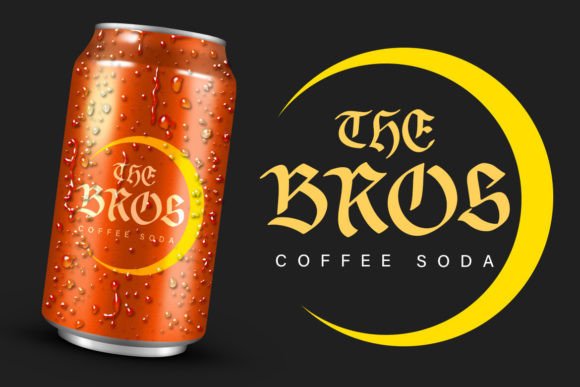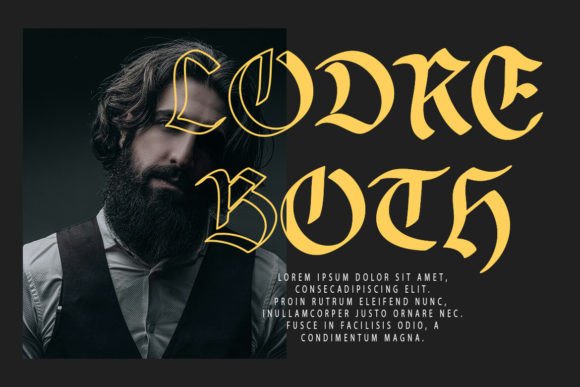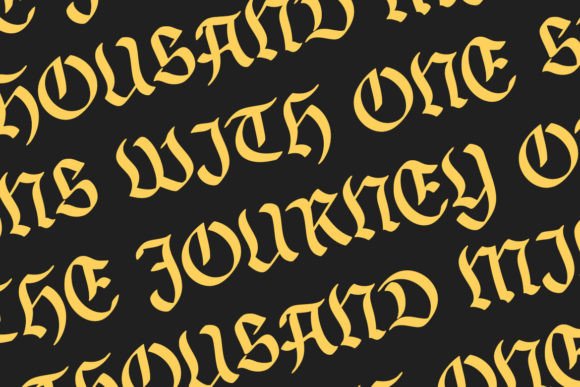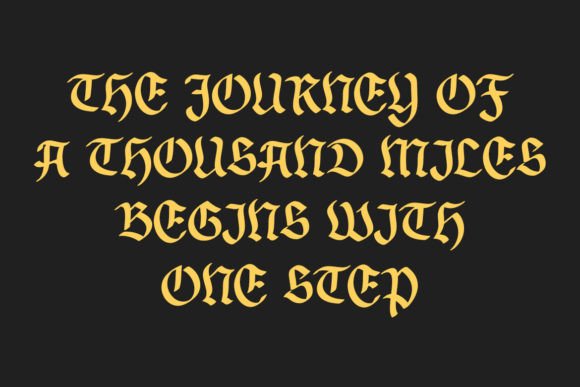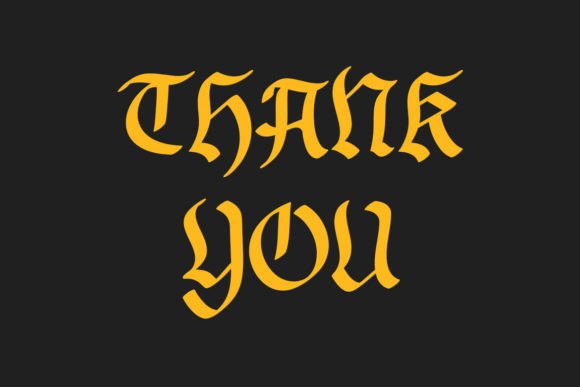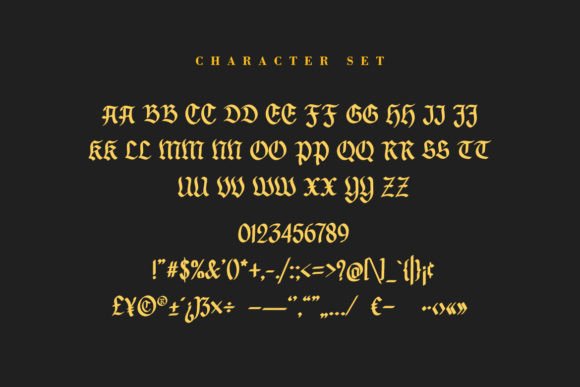
Introducing Brook Font: A Modern Blackletter Masterpiece
In the world of typography, fonts play a crucial role in conveying messages, expressing emotions, and creating a lasting impression. For designers, crafters, and marketers, finding the right font can be a daunting task. However, if you’re looking for a font that exudes power, elegance, and sophistication, look no further than Brook Font. This modern Blackletter font is a game-changer, combining the traditional style of old Gothic letters with a fresh, updated design that’s sure to make a statement.
The Inspiration Behind Brook Font
Brook Font draws inspiration from the traditional Blackletter style, which originated in the Middle Ages. Characterized by its dramatic flourishes, bold lines, and intricate details, Blackletter typography has been a staple of Gothic architecture, calligraphy, and printing for centuries. However, Brook Font takes this classic style and infuses it with a modern twist, creating a unique and captivating visual identity.
Design Features of Brook Font
Brook Font boasts a range of design features that make it an attractive choice for designers and crafters. Some of its key characteristics include:
• Bold and Strong Look: Brook Font features thick, bold lines that give it a powerful and commanding presence.
• Modern Twist: The font’s updated design ensures it looks fresh and contemporary, making it perfect for modern designs.
• Traditional Gothic Roots: Brook Font’s Blackletter heritage is evident in its intricate details and classic letterforms.
• High Versatility: The font is suitable for a wide range of applications, from logos and posters to headlines and titles.
Uses of Brook Font
Brook Font’s versatility makes it an excellent choice for various design projects. Here are some ways you can use this stunning font:
• Logo Design: Create a lasting impression with Brook Font’s bold and powerful letterforms, perfect for logos that require a strong visual identity.
• Poster Design: Make a statement with Brook Font’s attention-grabbing headlines and titles, ideal for posters, flyers, and brochures.
• Headlines and Titles: Add a touch of elegance and sophistication to your headlines and titles with Brook Font’s unique blend of traditional and modern elements.
• Branding and Identity: Establish a strong brand identity with Brook Font’s distinctive and memorable letterforms.
Benefits of Using Brook Font
By choosing Brook Font for your design projects, you’ll enjoy a range of benefits, including:
• Unique Visual Identity: Brook Font’s distinctive style ensures your designs stand out from the crowd.
• Improved Readability: The font’s clear and bold letterforms make it easy to read, even at small sizes.
• Flexibility: Brook Font is suitable for a wide range of applications, from print to digital media.
• Time-Saving: With Brook Font, you can create stunning designs quickly and efficiently, saving you time and effort.
Brook Font is a modern Blackletter masterpiece that offers a unique blend of traditional and contemporary design elements. With its bold, strong look and high versatility, this font is perfect for designers, crafters, and marketers looking to make a statement. Whether you’re creating logos, posters, headlines, or titles, Brook Font is an excellent choice. So why wait? Discover the power of Brook Font and elevate your designs to new heights.